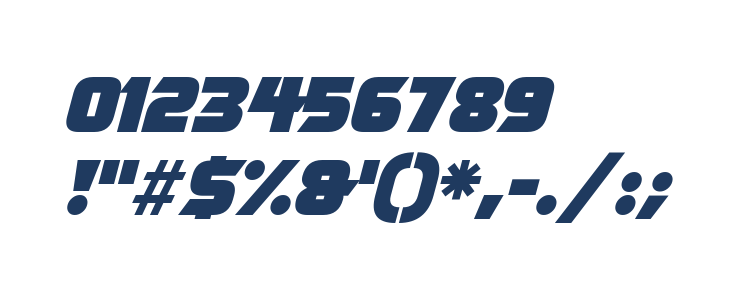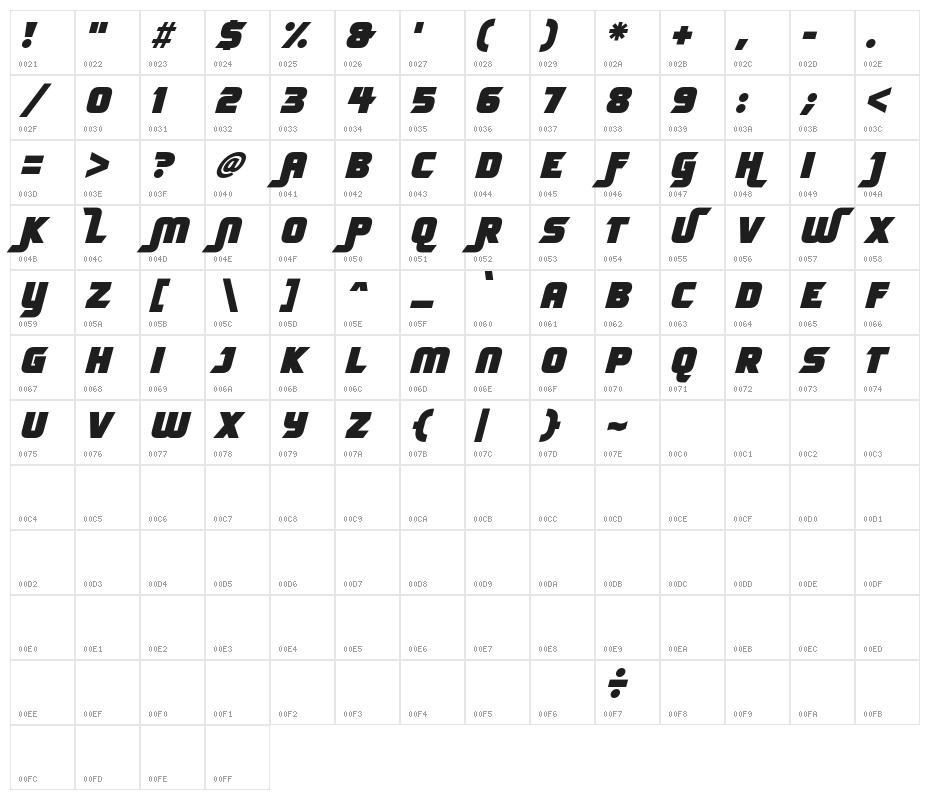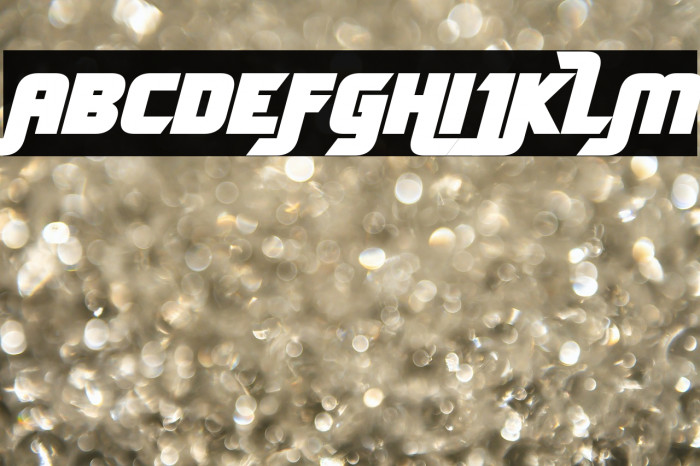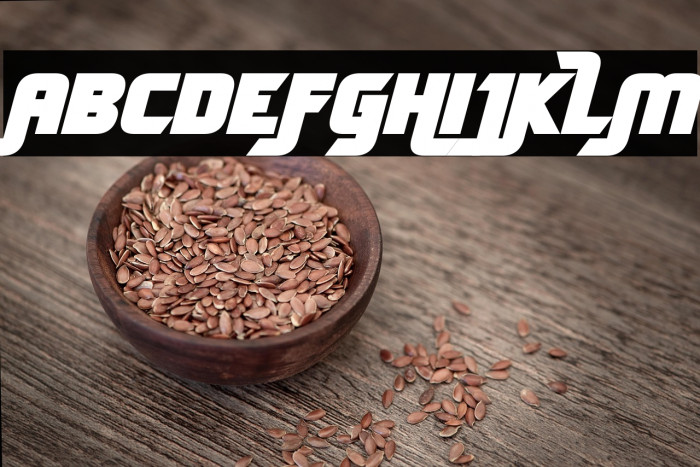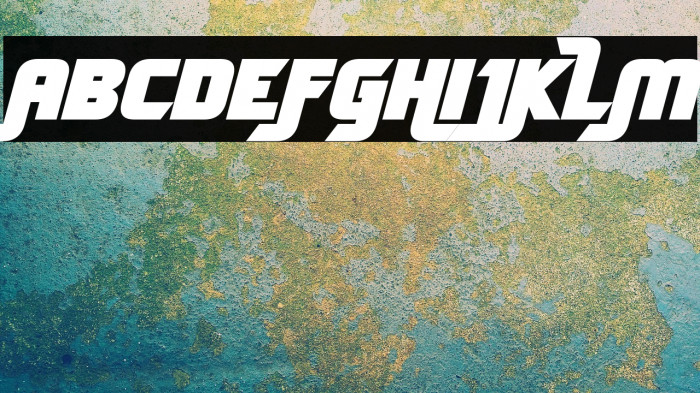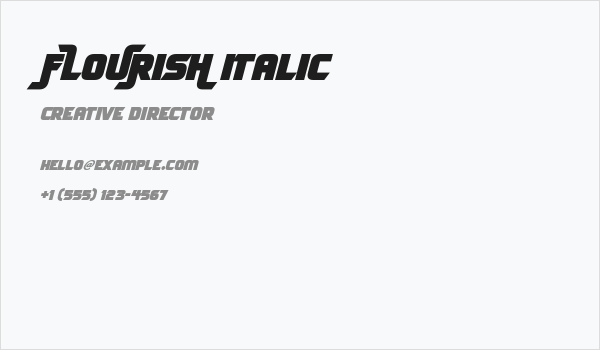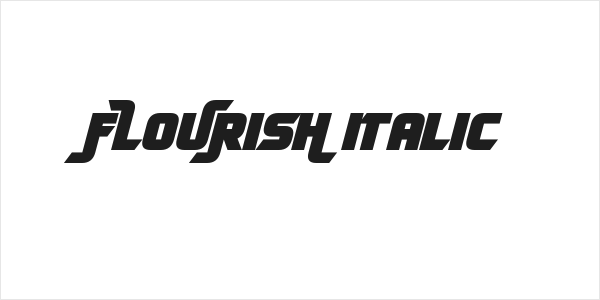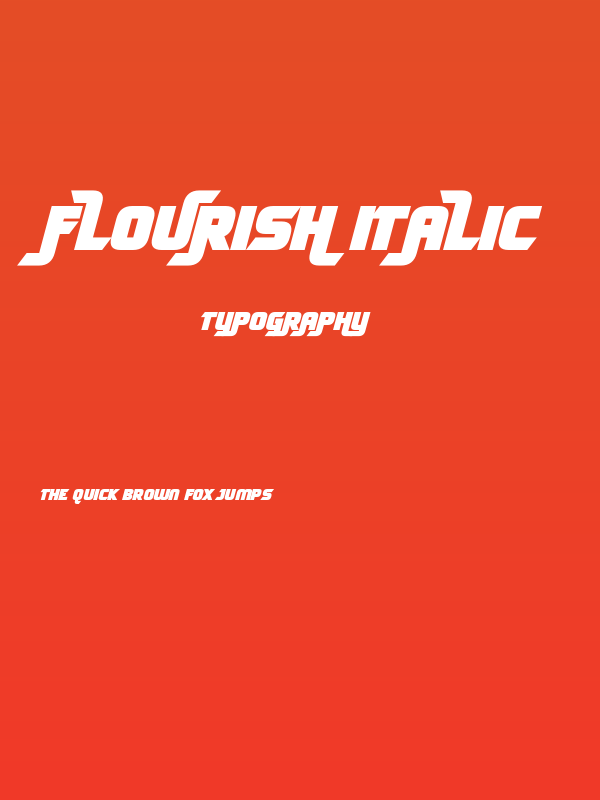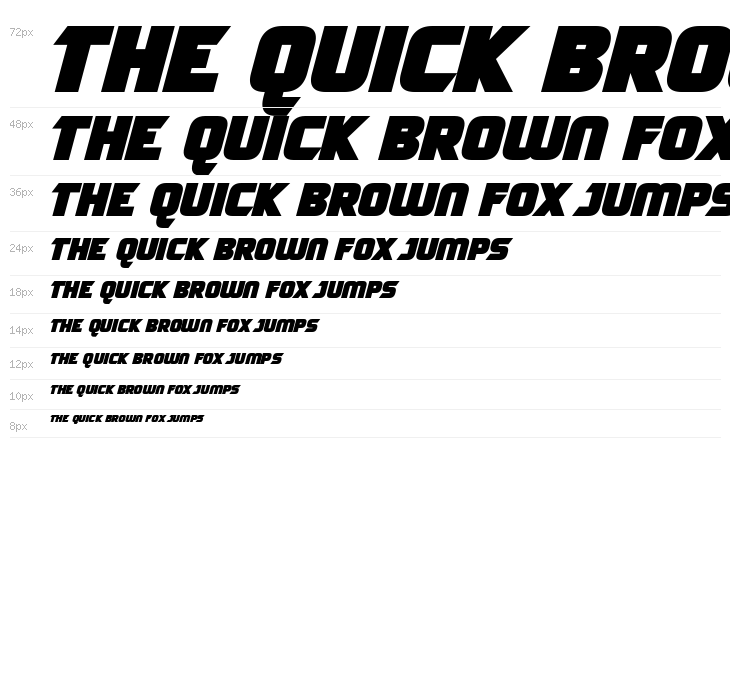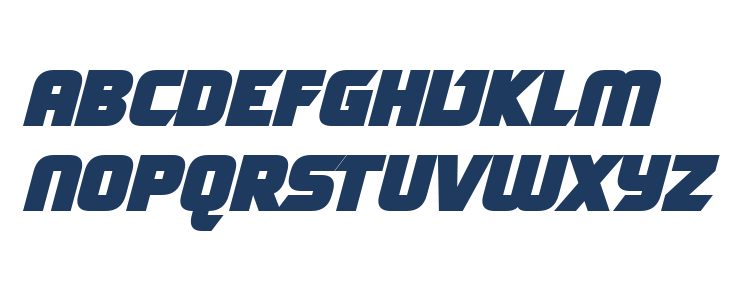
FLOURISH Italic Font
FLOURISH Italic Description
This font features a bold, italicized style with a strong, dynamic presence. The characters are designed with sharp angles and a forward-leaning posture, giving a sense of motion and speed. The uppercase and lowercase letters maintain a consistent weight, contributing to a cohesive look. The numerals are equally bold, ensuring readability and impact. Special characters are crafted to match the overall aesthetic, providing a complete and versatile set. The font's design is suitable for projects that require a modern and energetic feel.
| Proposed Projects | Ideal for sports branding, dynamic posters, modern advertising, and energetic logo designs. |